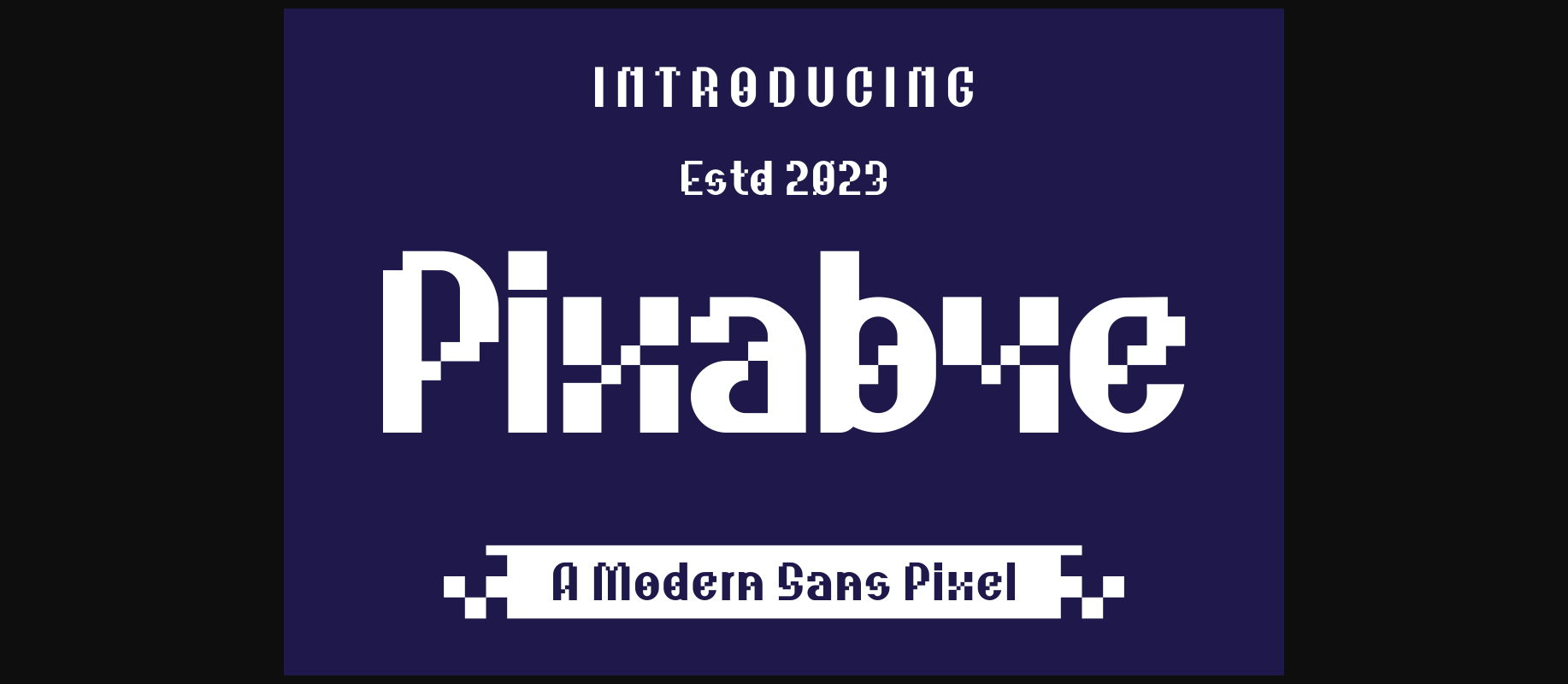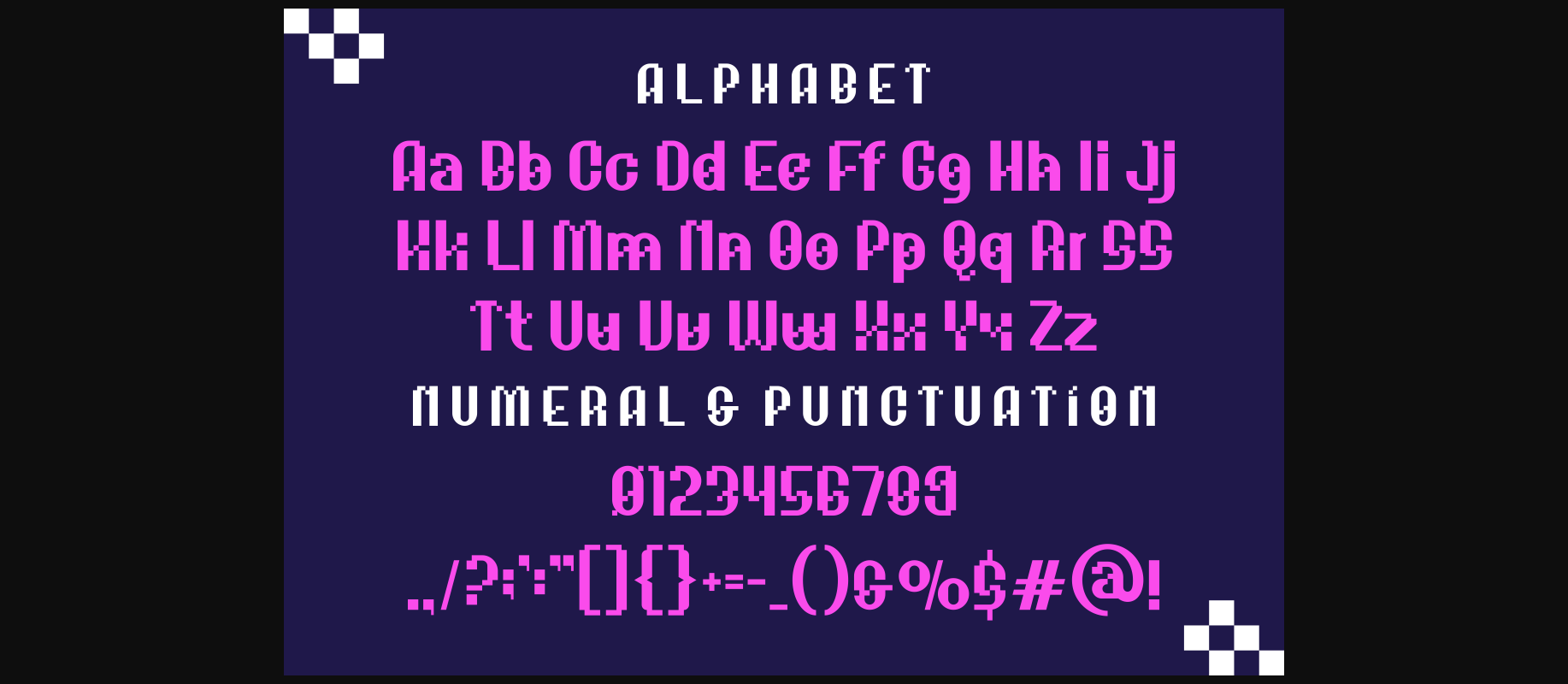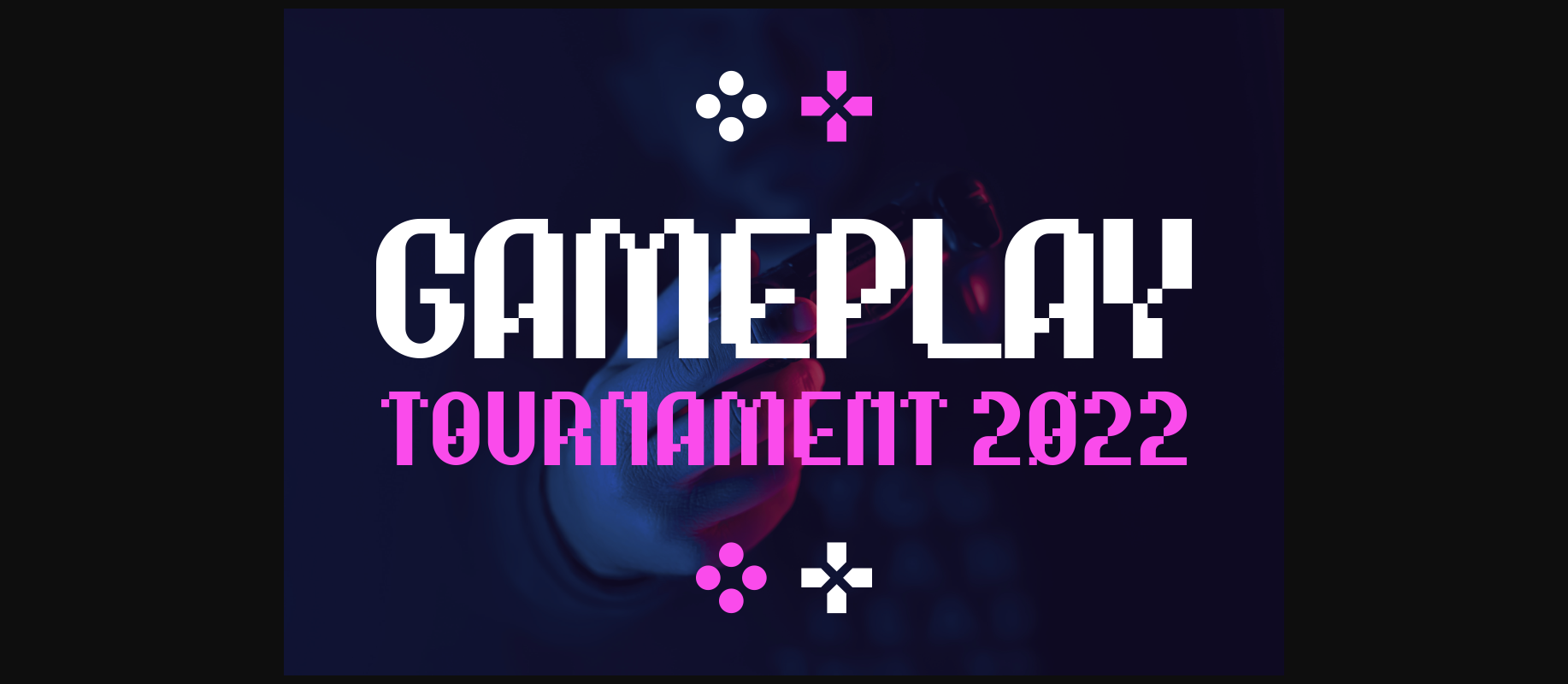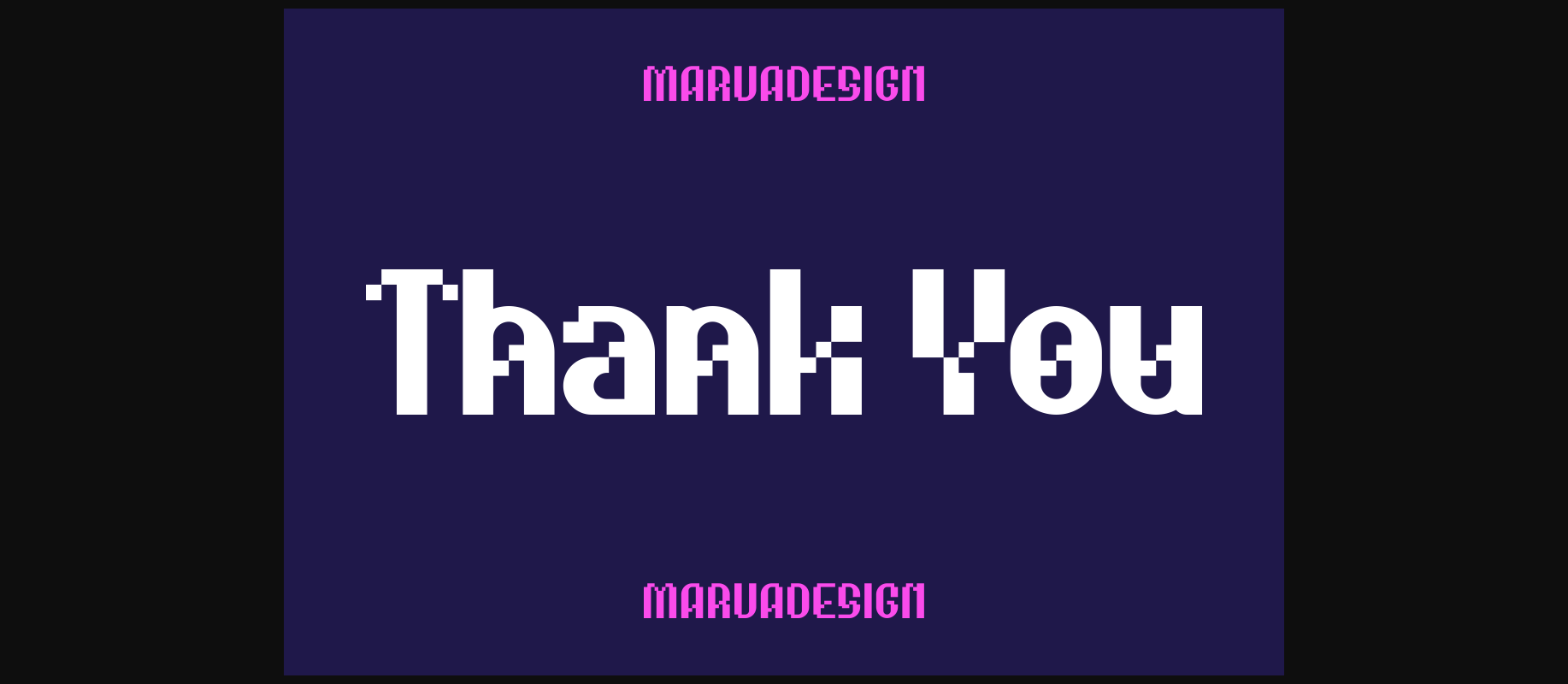
About Pixabye Font
Pixabye is a bold and authentic display font. The font is suitable for any branding project like logo, t-shirt printing, product, and many more. Outstanding in a wide range of contexts.